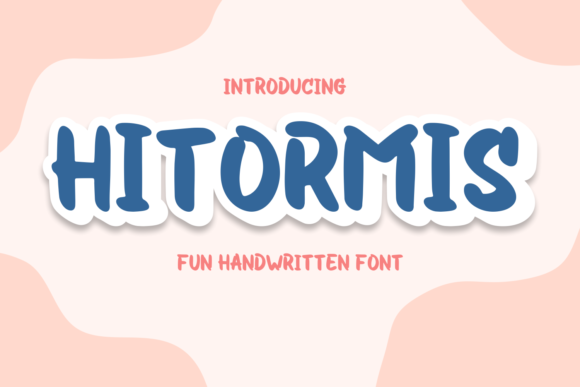
Behold, Hitormis Font: The Ultimate Fashion Statement for Your Brand
In the realm of fashion, where every detail speaks volumes, your font choice holds immense power. Enter Hitormis Font, the epitome of sophistication and elegance, meticulously crafted to elevate your brand to new heights of captivating charm.
Picture this: a font that dances across your fashion website, leaving an indelible mark on every visitor. Its graceful strokes and alluring curves draw attention like a magnet, inviting them to explore the world of style you have so carefully curated. Hitormis Font is more than just a font; it's an experience, a journey into the heart of fashion.
With Hitormis Font, you'll command attention effortlessly. Its carefully crafted glyphs weave a tale of luxury and exclusivity, transforming your website into a runway for your products. Each letter exudes confidence and finesse, captivating your audience with its timeless appeal.
Immerse yourself in a world of endless creative possibilities. From sleek and modern to vintage and timeless, Hitormis Font adapts seamlessly to your unique vision. Create captivating logos that leave a lasting impression, design eye-catching social media posts that ignite engagement, or craft mesmerizing marketing materials that demand attention.
Hitormis Font isn't just a font; it's a statement. A statement of sophistication, a statement of elegance, and a statement of unwavering commitment to excellence. It's the perfect choice for fashionistas, trendsetters, and anyone who understands the power of visual communication.
So, step into the spotlight and let Hitormis Font illuminate your brand. Unveil a world of fashion that captivates, engages, and inspires. The journey begins here, with Hitormis Font as your guiding light.